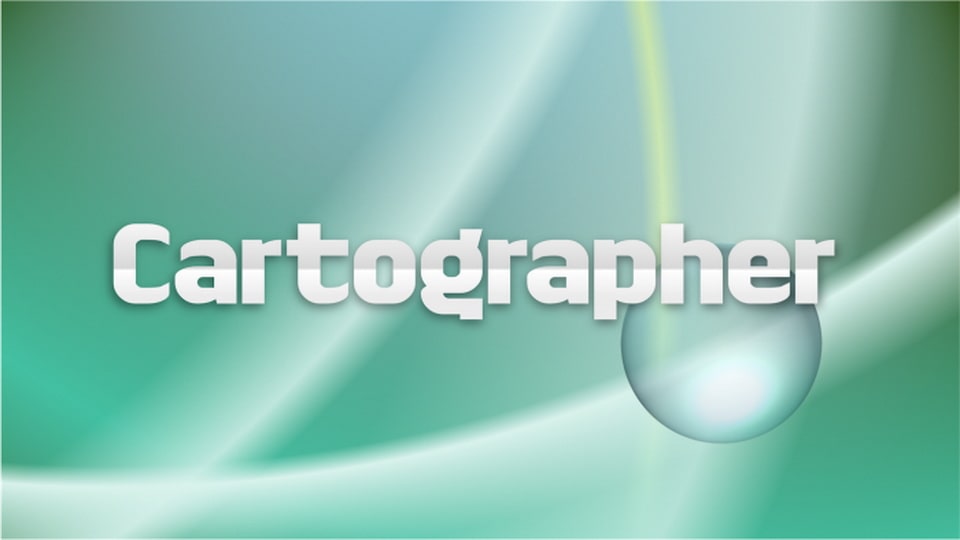
Download Cartographer font, a modern sans serif typeface inspired by Frutiger Aero. With its techno-humanist look Cartographer font is perfect for posters, branding, ads and display use.
Designer: frongile